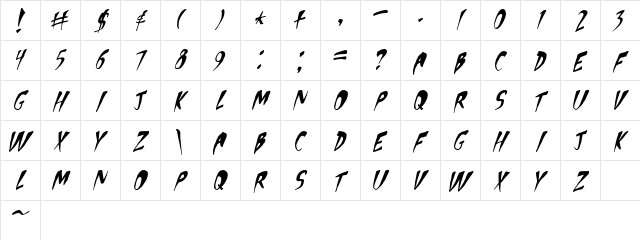
Apocalypse 1 Free Font
Apocalypse 1
Style: 1
Apocalypse Family
Apocalypse 1
Design Context for Apocalypse
Apocalypse is a composed and adaptable typeface that performs quietly and consistently across a wide range of design contexts.